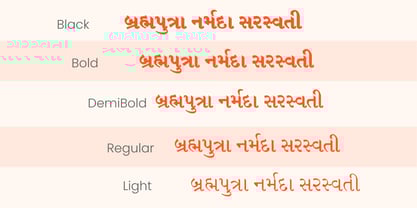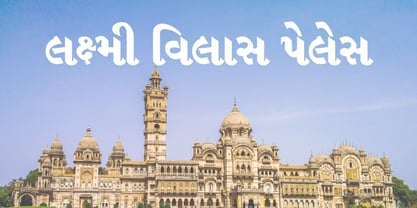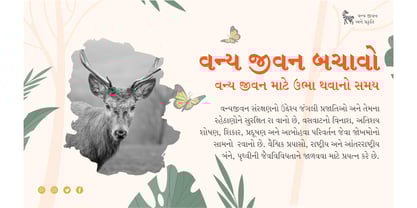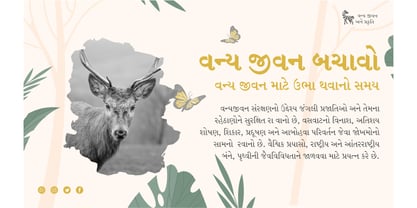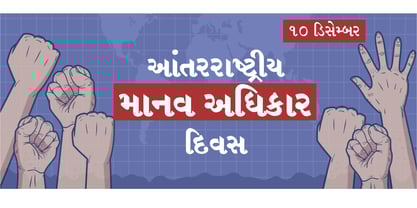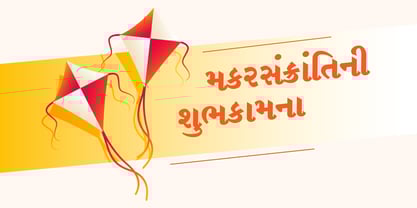
Shree Gujarati 3313
by Modular InfoTech
The Shree Gujarati 3313 Font Family was designed by Modular Infotech and published by Modular InfoTech. Shree Gujarati 3313 contains 10 styles and family package options. More about this family
Shree Gujarati 3313 is a versatile text typeface family designed with refined proportions and balanced letterforms that ensure both elegance and functionality. The characters are crafted with smooth curves and precise strokes, giving the font a polished and professional appearance. With five available weights—Light, Regular, Medium, Bold, and Black with respective italics. It offers a full spectrum of tonal contrast, making it adaptable for a wide range of design and publishing needs. Its adaptability allows seamless use across headings, subheadings, and body text, ensuring clarity and visual harmony in every context.
This typeface is ideally suited for newspapers, magazines, and editorial layouts where readability and weight variation are critical. It works effectively in academic and educational publishing, government and corporate reports, and professional documentation, where clarity and hierarchy matter. The lighter weights provide smooth readability for long-form content, while the bolder weights create striking impact for titles, advertisements, and display text. Its flexibility also makes it suitable for branding, digital platforms, and high-quality print projects.
Designers: Modular Infotech
Foundry: Modular InfoTech
About Modular InfoTech
Modular Infotech (formerly Modular Systems), based in Pune, India, was established in 1983 to advance Indian scripts in the Printing Industry. The company began its journey by developing CRT-based phototypesetters (PTS100), which were launched in 1987. Without font generator tools, Modular created a proprietary font format, continuously enhancing it to meet evolving needs. Collaborating with artists across India, they built the Nation’s most extensive collection of original typefaces for all Indian Scripts.In 1989, Modular launched DOS-based software paired with Indic keyboard handlers using its proprietary font format. Adapting to technological advancements, they transitioned to industry-standard formats like TrueType (TTF) and Adobe Type1, culminating in the launch of their flagship multilingual software, Shree-Lipi, in 1991. This period also marked the rise of laser printers, prompting further innovation. The company later embraced OpenType font formats introduced by Microsoft, ensuring seamless compatibility with modern platforms.Today, Modular Infotech is renowned for possessing the world’s most extensive Indic fonts., designed to support India’s diverse linguistic heritage. Their fonts cover over 15 Indian languages, including Devanagari, Gujarati, Gurmukhi, Bangla, Assamese, Manipuri, Odia, Tamil, Kannada, Telugu, Malayalam, and Vedic Sanskrit. Each typeface is meticulously crafted for readability, cultural resonance, and aesthetic appeal, enabling authentic communication in regional languages.Modular fonts excel in rendering complex ligatures and unique glyphs, accurately capturing each script's stylistic and cultural nuances. Leveraging advanced OpenType technology, these fonts ensure flawless representation of intricate Indian scripts across print and digital mediums.The extensive font collection serves many industries, including Publishing, Design, Education, Newspapers, and Government sectors. Beyond facilitating multilingual communication, Modular Infotech is vital in preserving India’s linguistic heritage, bridging traditional and modern media needs. The company’s impact extends globally, with prominent International Clients such as Google, Microsoft, Apple, and RedHat relying on its expertise in Indic typography.Through its pioneering efforts and unwavering commitment to quality, Modular Infotech has made regional language content more accessible, visually impactful, and culturally authentic, cementing its place as a leader in Indic font development.